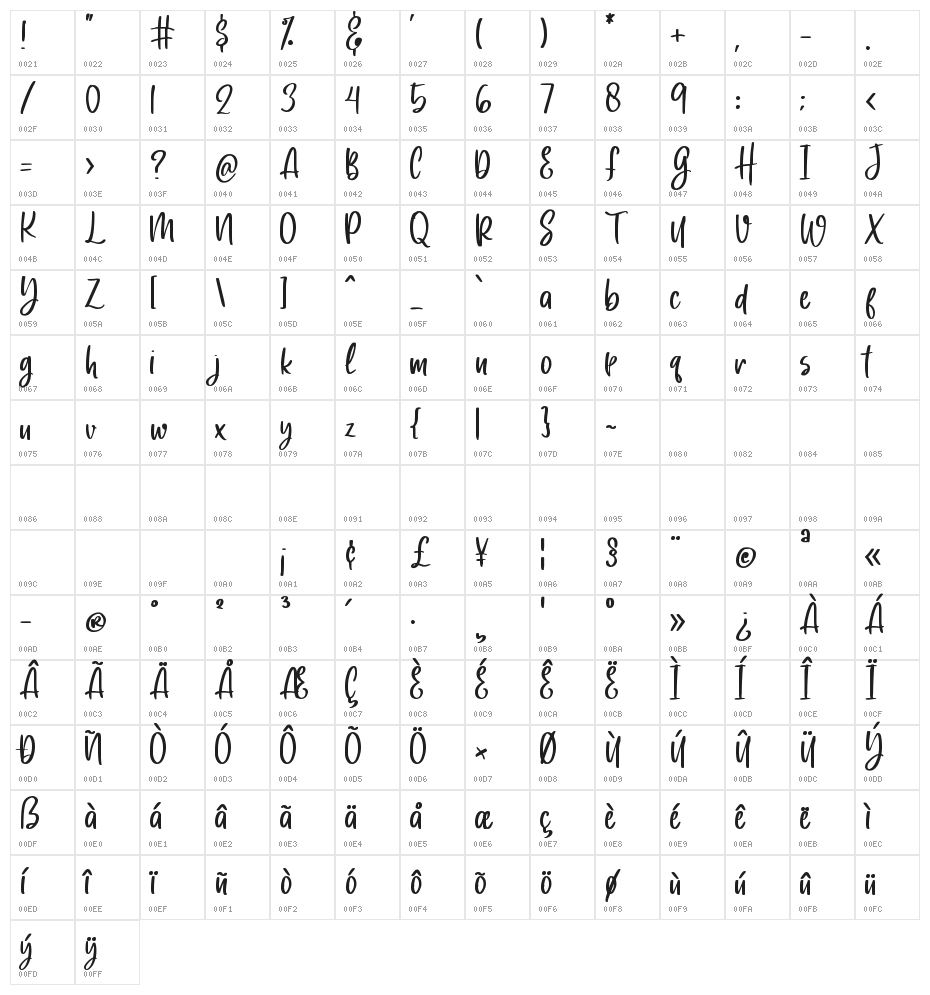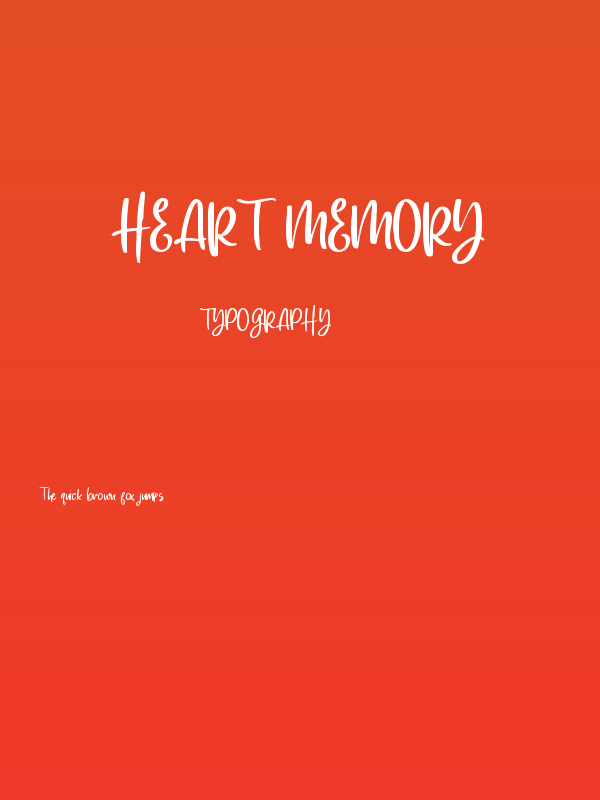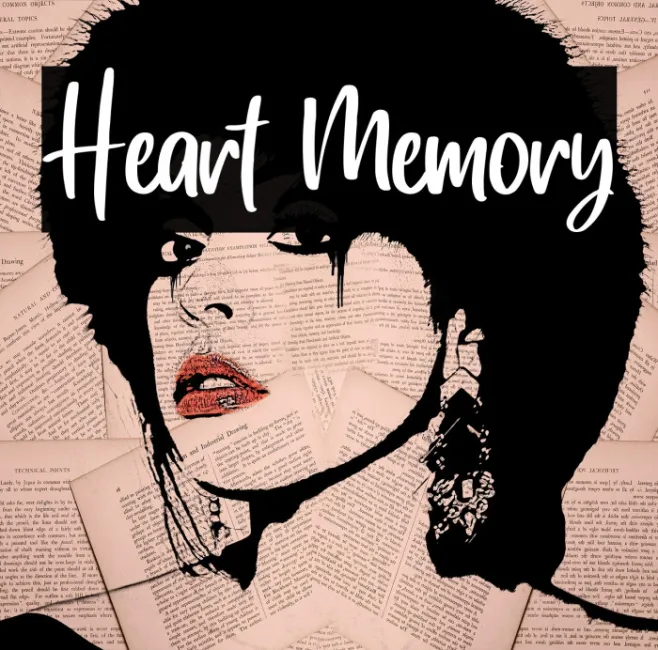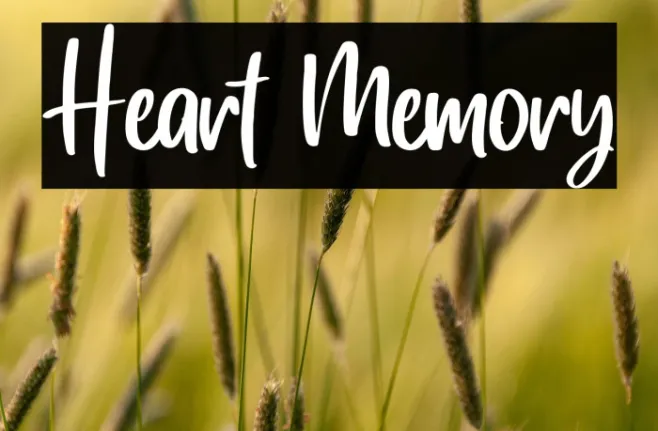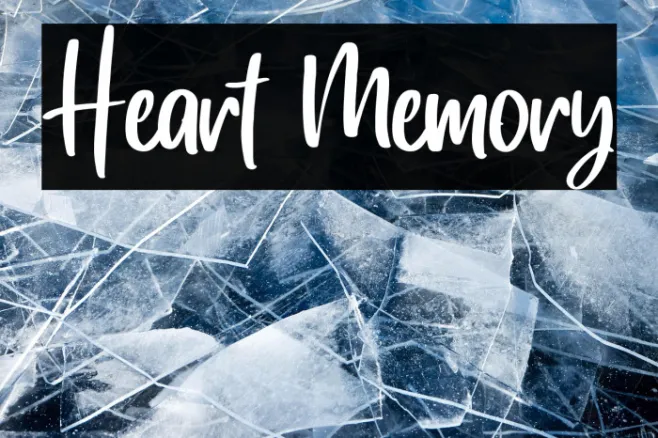
Heart Memory Font
Heart Memory Description
This font features a lively and expressive handwritten style, characterized by its fluid and dynamic strokes. The uppercase letters are bold and slightly condensed, with a playful flair that adds personality to each character. The lowercase letters maintain a consistent flow, with some letters featuring unique loops and curves that enhance the font's whimsical nature. Numbers and special characters are crafted with the same attention to detail, ensuring a cohesive look across all elements. The overall appearance is both modern and artistic, making it suitable for creative projects that require a personal touch.
| Overall Style | Modern, Artistic |
| Proposed Projects | Ideal for greeting cards, invitations, branding, and social media graphics. |